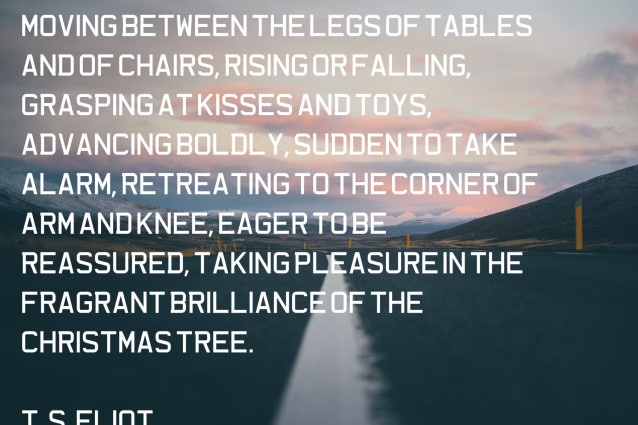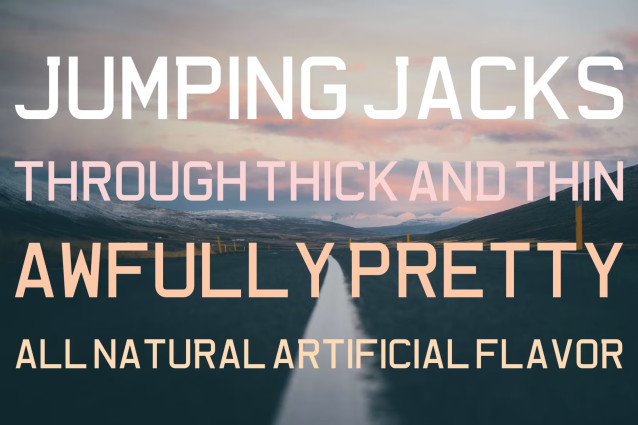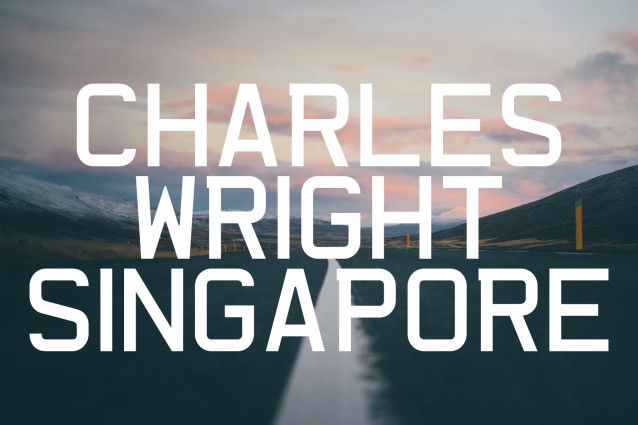
Charles Wright Singapore Font
Charles Wright Singapore is a bold, industrial sans-serif display font based on the specific lettering style used for vehicle registration plates in Singapore. This typeface is an addition to the Charles Wright family, which is modeled after the standard British vehicle plate lettering. Featuring rigid, semi-condensed proportions and distinctive angled corners, the typeface delivers a highly legible, utilitarian aesthetic with a modern, technical edge.
Best suited to automotive branding, transportation signage, athletic apparel, urban streetwear, and editorial headlines. Its structured, blocky forms make it an excellent choice for posters, packaging labels, and digital graphics that require a clean, high-visibility presence.